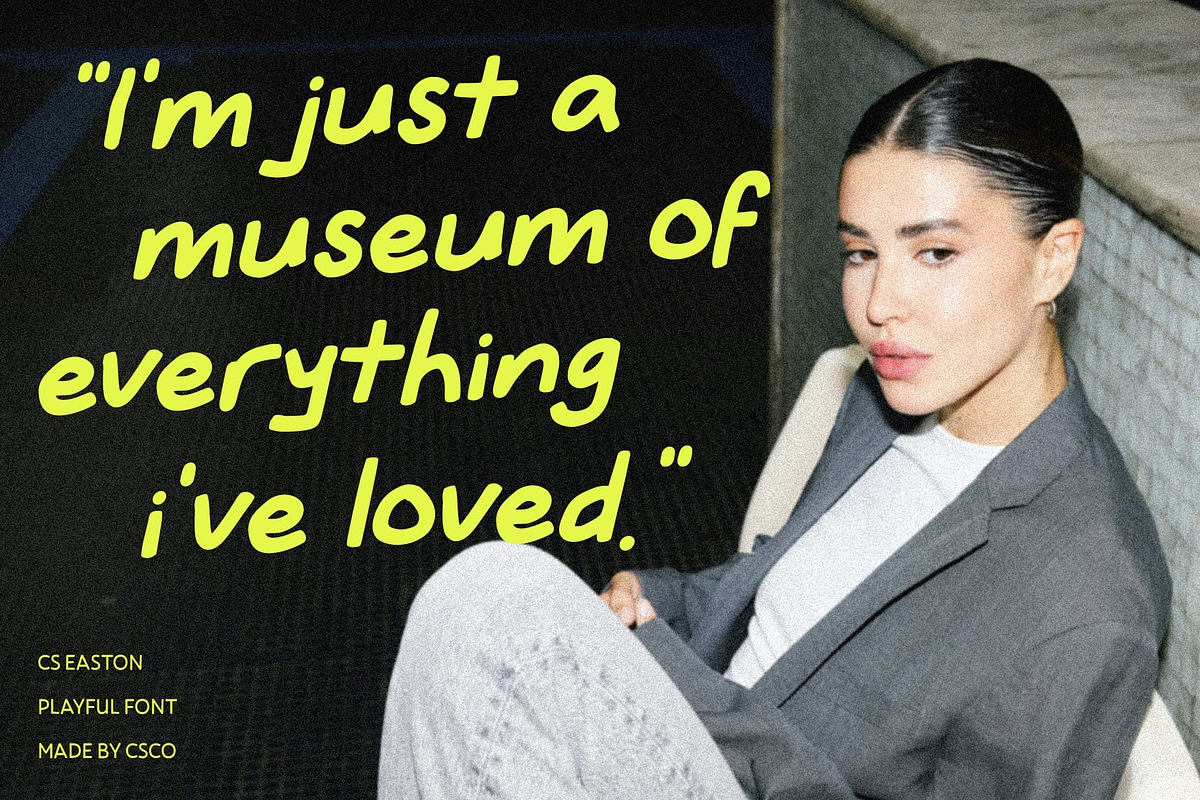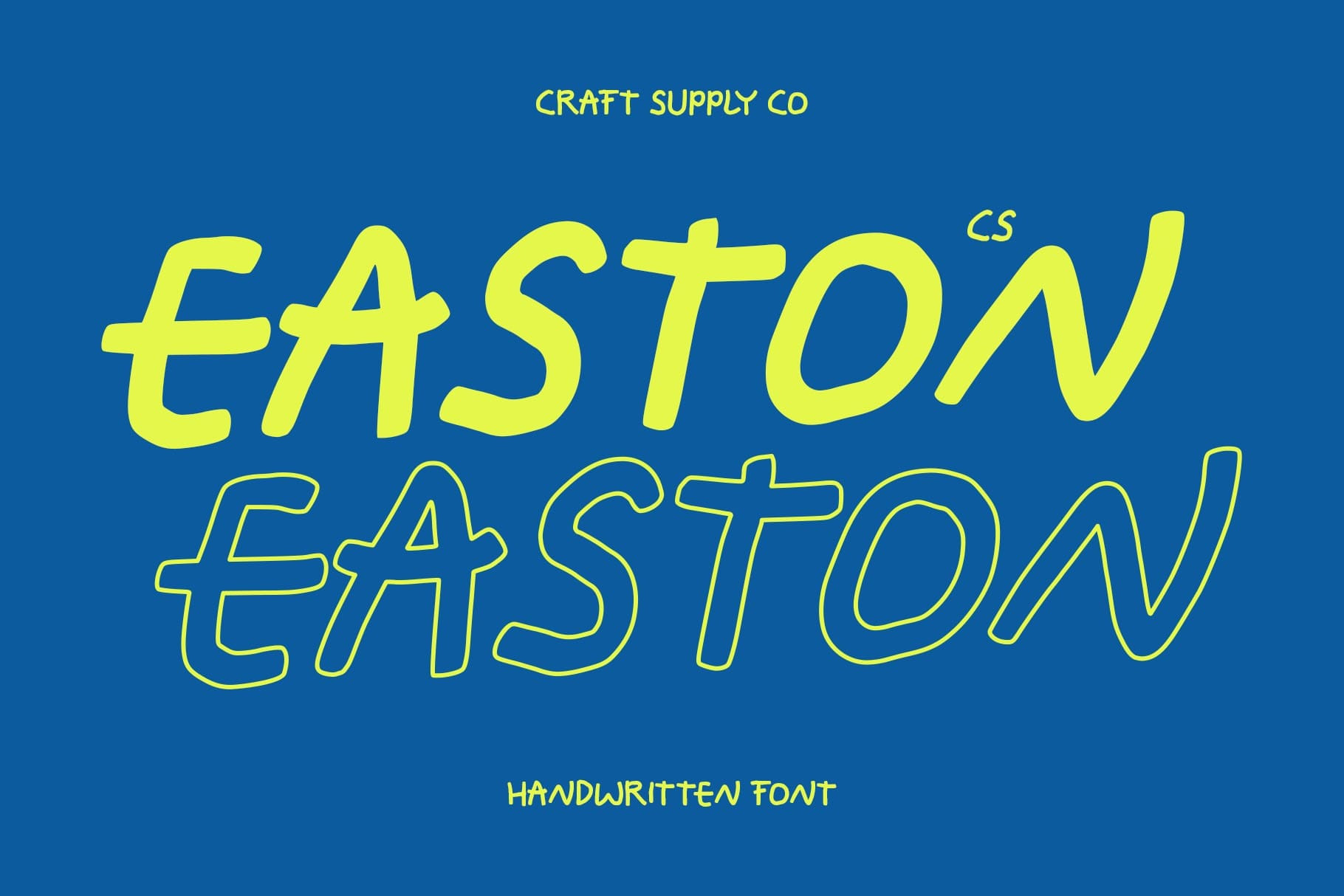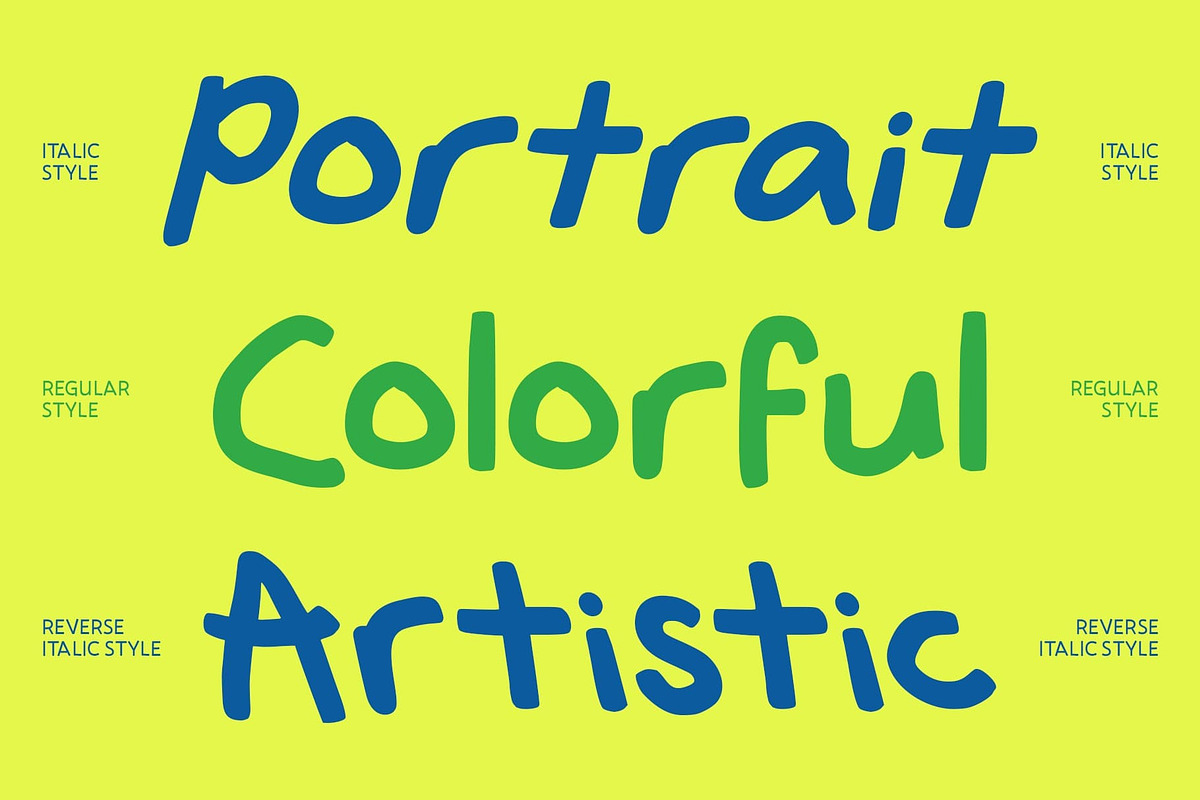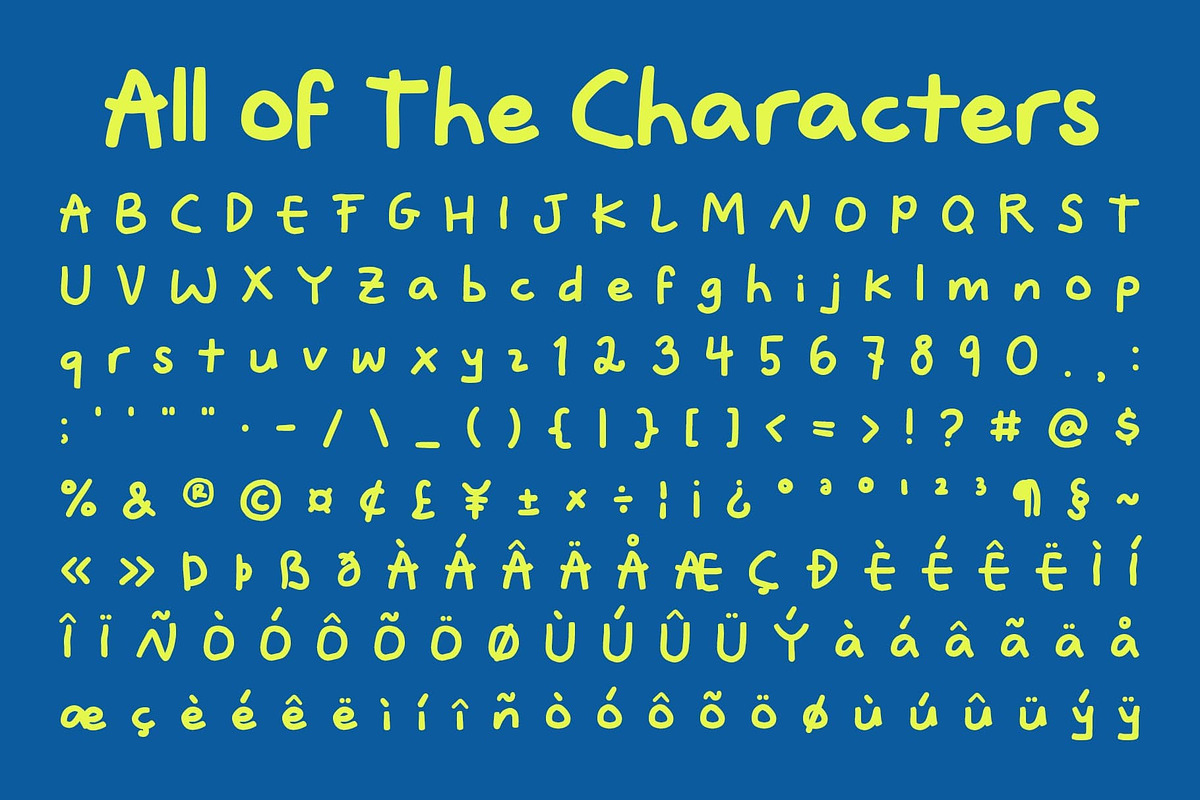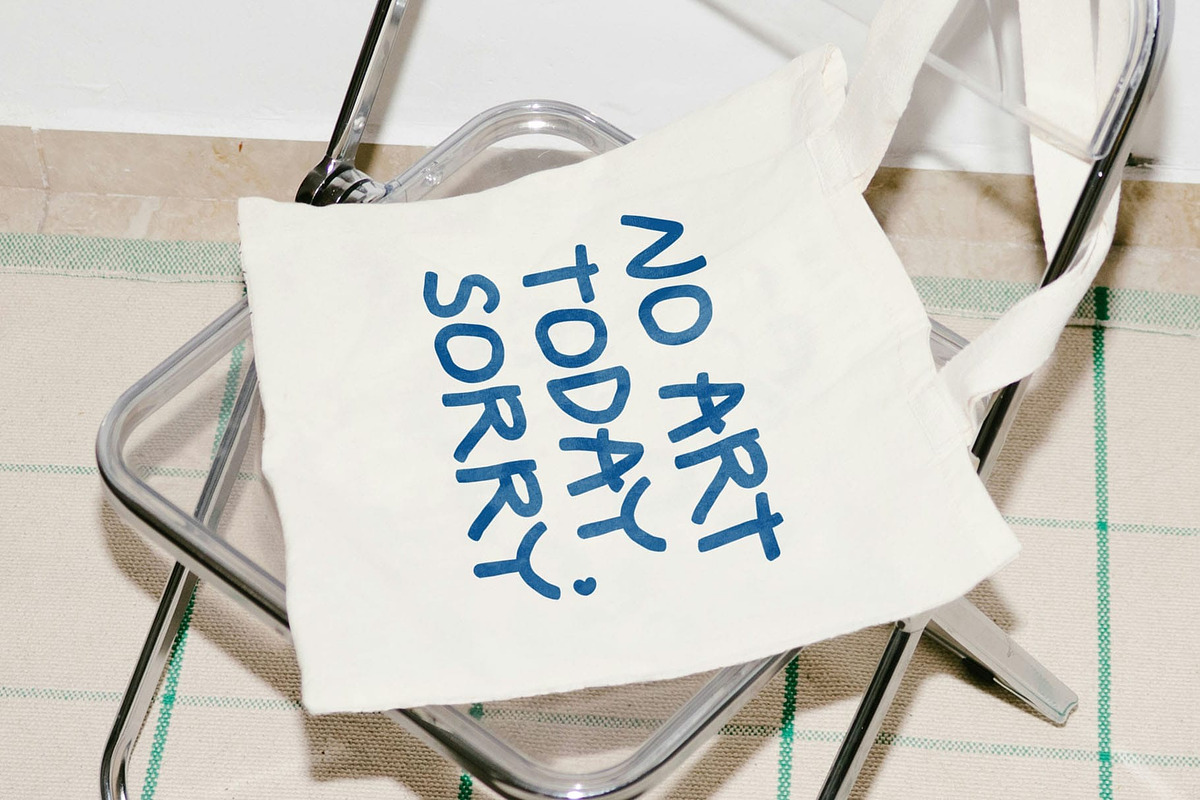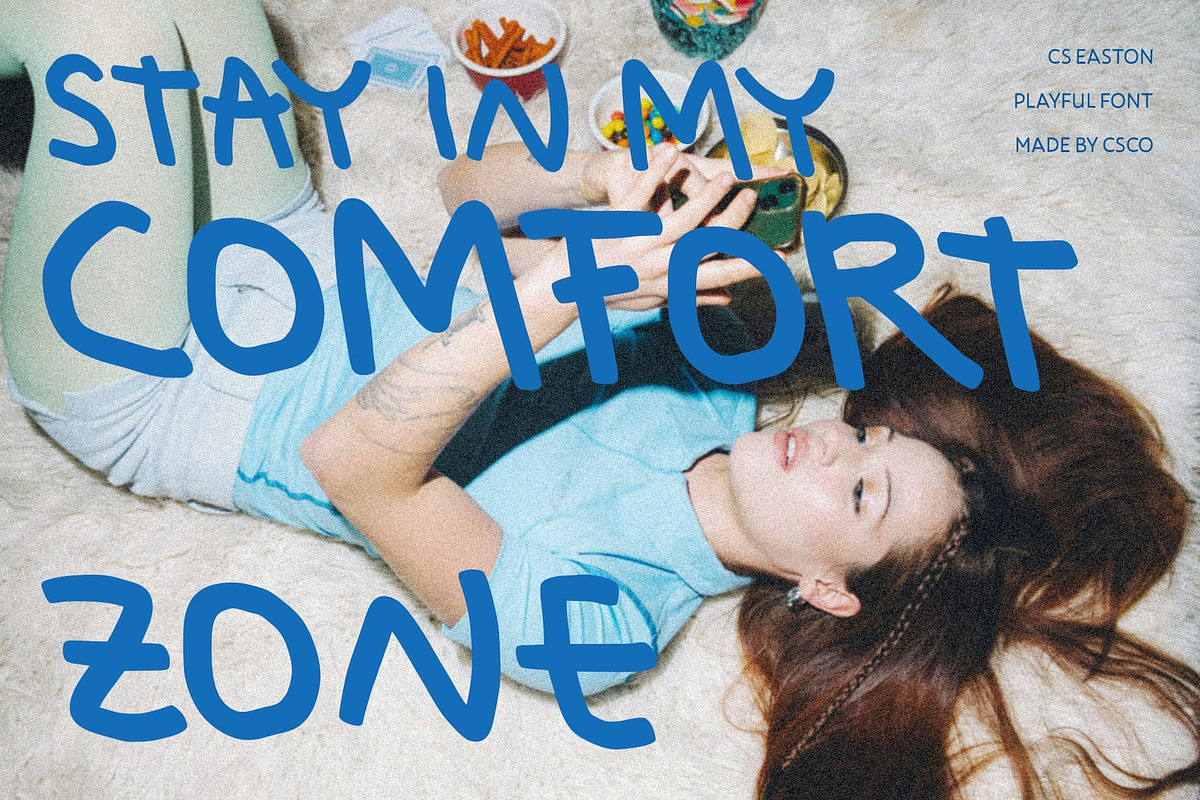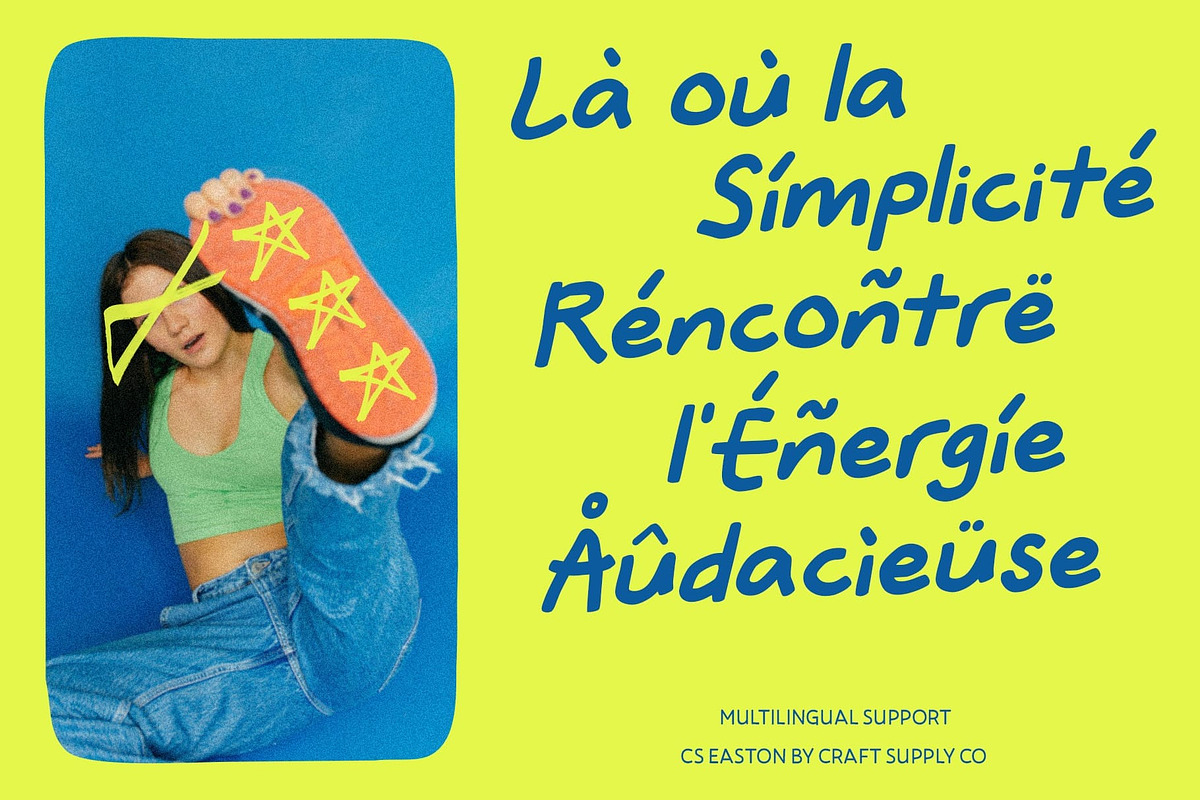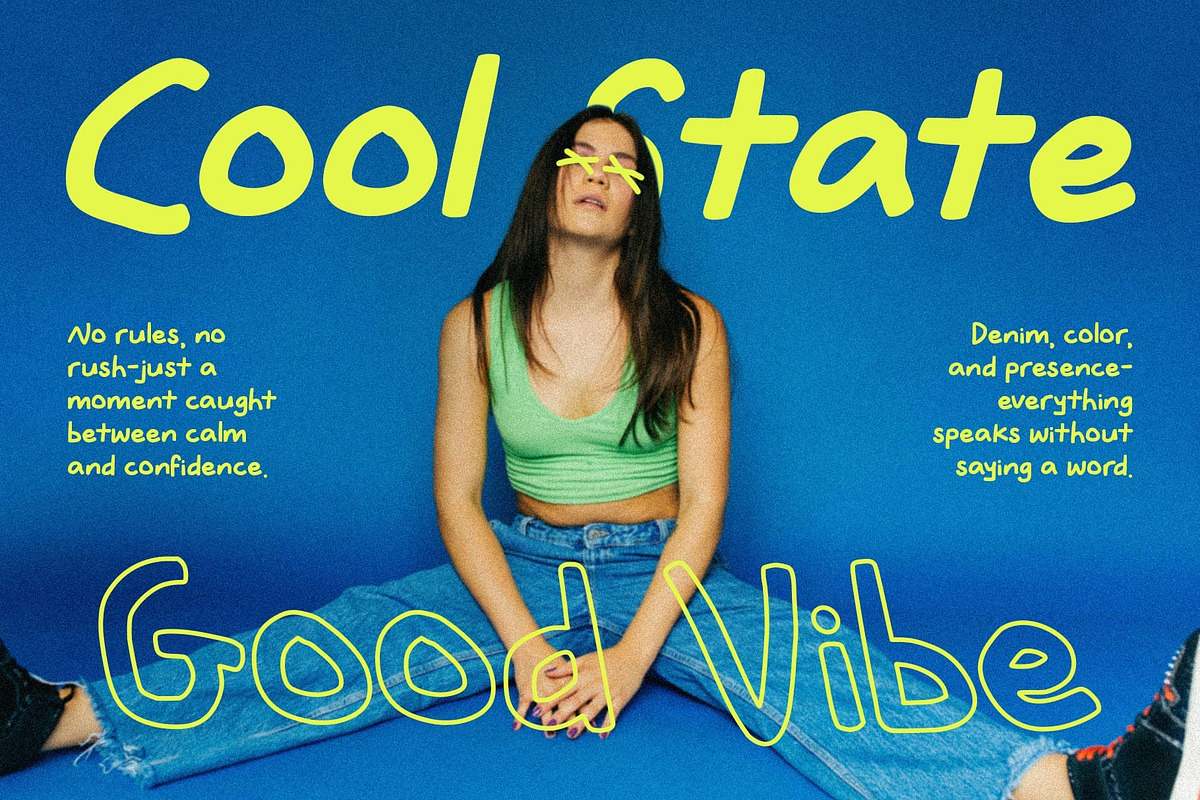
CS Easton – Playful Font
CS Easton – Handwritten Playfulness with Modern Charm Playful Sans Serif Handwritten Font
Natural Flow with a Fun Spirit This is a captures the heart of creativity with its natural, handwritten flow and textured character. Designed with a unique blend of sans serif structure and freehand expression, this font radiates warmth and liveliness. Each stroke feels personal and organic, making it perfect for designs that aim to connect with a cheerful, human touch.
Modern and Expressive Design Balancing modern form with expressive energy, this font turns ordinary text into something vibrant and engaging. Its smooth rhythm and easy readability allow it to work beautifully across various media from posters to social media visuals adding a sense of authenticity and charm to every composition.
Perfect for Playful Branding and Titles Bring your words to life with this font’s playful elegance. Whether you’re crafting branding for a youth-focused company, designing fun event posters, or creating quirky packaging, this font delivers a joyful and distinctive tone that leaves a lasting impression.
Full of Character and Versatility This font’s dynamic shapes and handcrafted style make it a go-to choice for creative designers seeking flexibility without losing personality. It’s not just a font it’s a celebration of creativity, designed to make your projects stand out with freshness, energy, and authenticity.